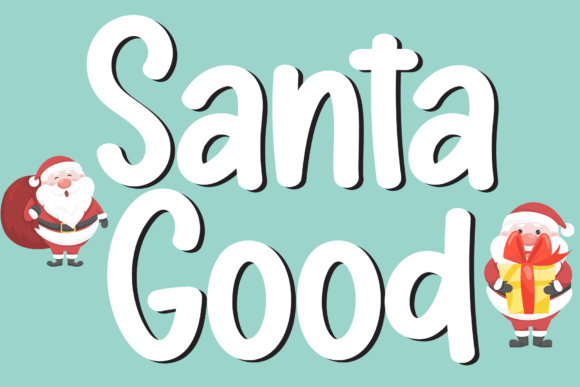
Introducing Santa Good Font - the Best Font For Brochure 2017! Created by the talented team at Creativewhitee, this script font is the ultimate choice for those seeking a font that will truly captivate and elevate their designs.
With Santa Good Font, your projects will not only stand out, but they will also evoke powerful emotions and leave a lasting impression on your audience. Imagine the extraordinary experience of using this font to create stunning wall displays, captivating wedding invitations, and attention-grabbing social media post logos. The possibilities are endless!
This font is specially crafted to cater to all your design needs. From advertisements to product packaging, from product designs to labels, from photography to watermarks - Santa Good Font is the perfect companion for any project that requires tasteful handwriting. Its versatility knows no bounds!
One of the standout features of Santa Good Font is its encoded PUA Character. This means that you can access all the unique characters and glyphs without the need for any additional design software. It's all at your fingertips, ready to unleash your creativity.